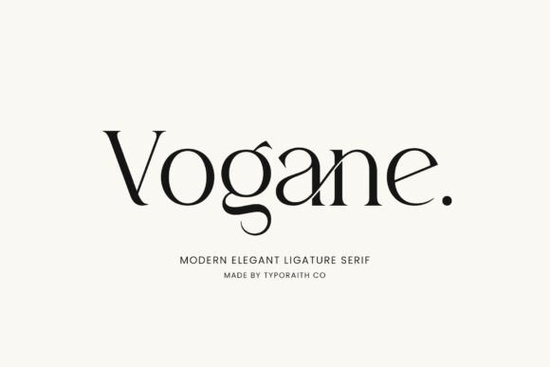
If you're looking for a font that combines elegance and modernity, Vogane Font is a great choice. This serif typeface is designed with refined curves and delicate details, making it a perfect fit for projects that require a touch of sophistication and style.
Why Choose Vogane Font?
Vogane Font stands out with its luxurious and timeless character. It's not just another serif font; it's a carefully crafted typeface that brings both classic charm and modern versatility to your design projects. Whether you're working on branding, editorial design, logos, invitations, or high-end packaging, Vogane can add a level of refinement that sets your work apart.
What Makes Vogane Unique?
The key to Vogane's uniqueness lies in its stylish ligatures and alternate characters. These features allow for more creative and visually appealing designs. For example, you can use the alternate characters to give a custom, handcrafted feel to your text, or you can use the ligatures to create a seamless, flowing look. This flexibility makes Vogane a versatile tool for designers who value both form and function.
How Can You Use Vogane Font?
Vogane is incredibly versatile and can be used in a wide range of design projects. Here are some ideas:
- Branding: Create a sophisticated and memorable brand identity with Vogane. Its elegant lines and refined details make it perfect for logos, business cards, and other branding materials.
- Editorial Design: Use Vogane for headlines and subheadings in magazines, books, and brochures. The font's clean and elegant appearance will enhance the overall aesthetic of your publication.
- Invitations: Add a touch of luxury to wedding invitations, event announcements, and other special occasion cards. Vogane's timeless character will make your invitations stand out.
- High-End Packaging: Elevate the look of product packaging with Vogane. Its sophisticated style can help your products appear more premium and attractive to customers.
Comparing Vogane with Other Serif Fonts
While there are many serif fonts available, Vogane has a unique blend of elegance and modernity. Let's compare it with a few other popular serif fonts:
- Blistaro Font: Blistaro is known for its bold and dramatic presence. While it's a great choice for making a strong statement, it may not have the same refined and delicate details as Vogane.
- Personal Vogue Font: Personal Vogue is another elegant serif font, but it tends to have a more traditional and classic feel. If you prefer a more modern and versatile option, Vogane might be a better fit.
- Carnival Lights Font: Carnival Lights is a playful and whimsical serif font. It's great for fun and casual designs, but if you need something more sophisticated and professional, Vogane is a better choice.
- Montegar Font: Montegar is a robust and sturdy serif font. It's excellent for projects that require a strong and reliable look, but it may lack the delicate and refined details that make Vogane so appealing.
Tips for Using Vogane Font Effectively
To get the most out of Vogane Font, here are some practical tips:
- Experiment with Ligatures and Alternates: Don't be afraid to mix and match the different ligatures and alternate characters. This can add a unique and personalized touch to your designs.
- Use Appropriate Line Spacing: Adjust the line spacing to ensure that the text is easy to read. Too much or too little spacing can affect the overall readability and aesthetic appeal.
- Combine with Complementary Fonts: Pair Vogane with a complementary sans-serif font for a balanced and harmonious look. This can help create a more dynamic and engaging design.
- Test on Different Backgrounds: Make sure to test your designs on various backgrounds to see how well Vogane holds up. A good font should be legible and visually appealing on both light and dark backgrounds.
Where to Find Vogane Font
You can find Vogane Font on Creative Fabrica. They offer a wide selection of high-quality fonts, and you can easily download and start using Vogane in your projects.
Final Thoughts
Vogane Font is a fantastic choice for anyone looking to add a touch of elegance and sophistication to their designs. Its modern yet timeless character, along with its stylish ligatures and alternate characters, make it a versatile and valuable addition to any designer's toolkit. Whether you're working on branding, editorial design, or special occasion projects, Vogane can help you create beautiful and impactful designs.